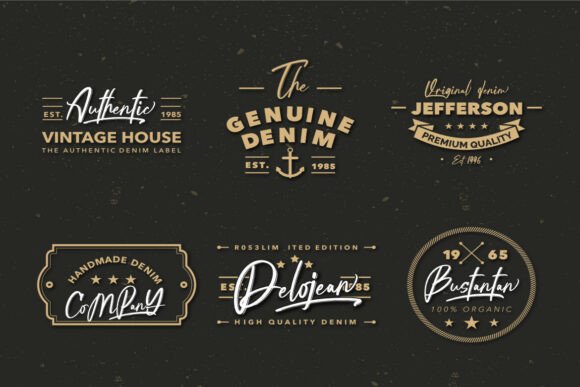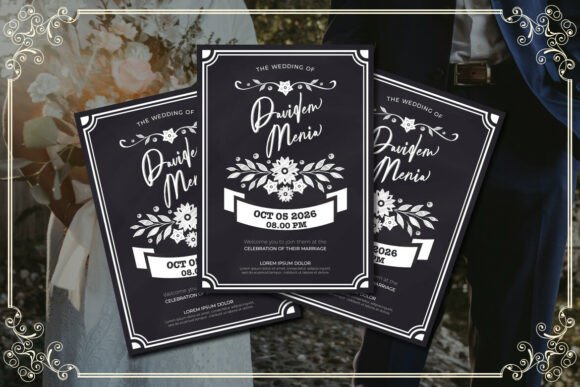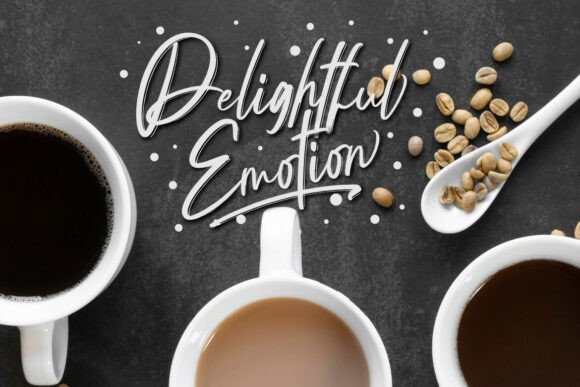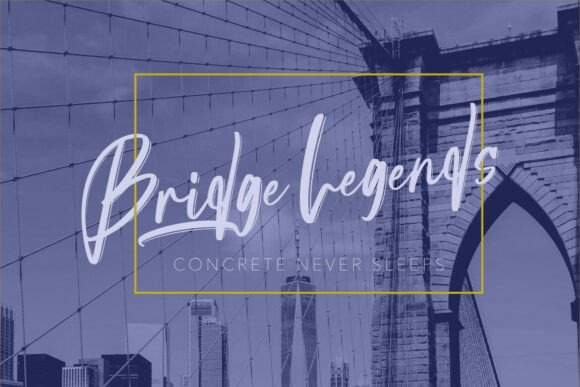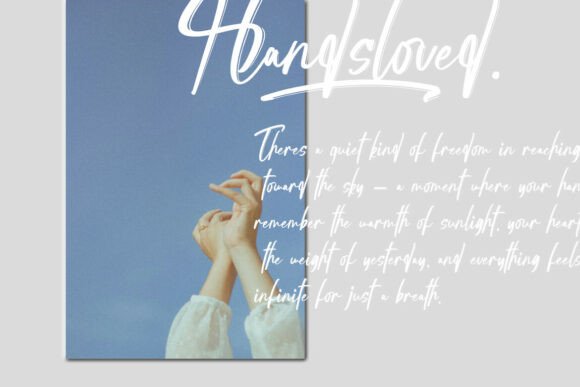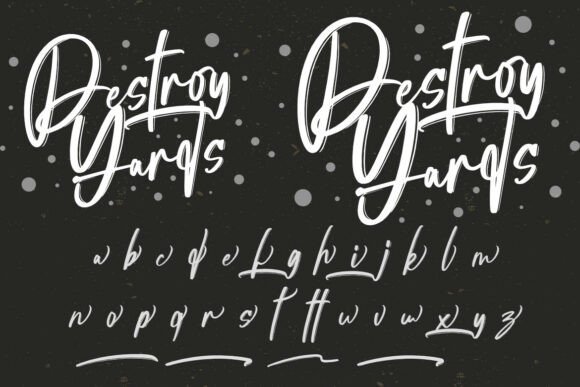
Unleash the Urban Edge with Destroy Yards Font
Are you looking for a typeface that embodies the fearless energy and raw motion of street culture? Look no further than the Destroy Yards Font, a dynamic script that captures the essence of urban attitude and youthful rebellion. Designed with expressive strokes, dynamic flow, and a gritty texture, this font is perfect for designers and crafters who want to add an edgy touch to their projects.
The Inspiration Behind Destroy Yards
Destroy Yards Script Font is inspired by the vibrant street culture that thrives in skateparks, graffiti walls, and urban landscapes. The font’s creator aimed to reflect the rhythm and energy of this culture, infusing each letter with a sense of movement and spontaneity. The result is a typeface that exudes confidence and street-smart creativity, making it ideal for projects that require a bold and daring approach.
Key Features of Destroy Yards Font
So, what sets Destroy Yards apart from other script typefaces? Here are some of its key features:
- Dramatically oversized capital letters: The font’s capital letters are large and attention-grabbing, perfect for making a statement.
- Forceful, quick-paced flow: The font’s flow is dynamic and energetic, suggesting immediate action and rebellion.
- Thick, scratchy texture: The font’s texture is gritty and authentic, giving it an urban feel that’s hard to ignore.
- Expressive strokes: Each letter is crafted with expressive strokes that convey a sense of movement and spontaneity.
Perfect for Edgy Projects
Destroy Yards Font is the ultimate choice for designing edgy streetwear logos, bold album covers, hip-hop concert flyers, extreme sports branding, and any project that needs a strong, graffiti-style signature. The font’s urban attitude and raw energy make it perfect for projects that require a bold and daring approach.
Use Cases for Destroy Yards Font
So, how can you use Destroy Yards Font in your projects? Here are some ideas to get you started:
- Streetwear logos: Add an edgy touch to your streetwear brand with a custom logo designed using Destroy Yards Font.
- Music album covers: Give your music album a bold and daring look with Destroy Yards Font.
- Hip-hop concert flyers: Create eye-catching flyers for hip-hop concerts and events using Destroy Yards Font.
- Extreme sports branding: Use Destroy Yards Font to create bold and daring branding for extreme sports teams and events.
- Fashion graphics: Add a touch of urban attitude to your fashion graphics with Destroy Yards Font.
Why Choose Destroy Yards Font?
So, why should you choose Destroy Yards Font for your projects? Here are some reasons:
- Unique and authentic urban feel: Destroy Yards Font offers a unique and authentic urban feel that’s hard to find in other typefaces.
- Highly versatile: The font is highly versatile and can be used in a wide range of projects, from streetwear logos to music album covers.
- Easy to read: Despite its bold and edgy design, Destroy Yards Font is easy to read and understand.
- Perfect for creative projects: The font is perfect for creative projects that require a bold and daring approach.
In conclusion, Destroy Yards Font is a dynamic script that captures the fearless energy and raw motion of street culture. With its expressive strokes, dynamic flow, and gritty texture, this font is perfect for designers and crafters who want to add an edgy touch to their projects. Whether you’re designing streetwear logos, music album covers, or hip-hop concert flyers, Destroy Yards Font is the ultimate choice for creating bold and daring designs.